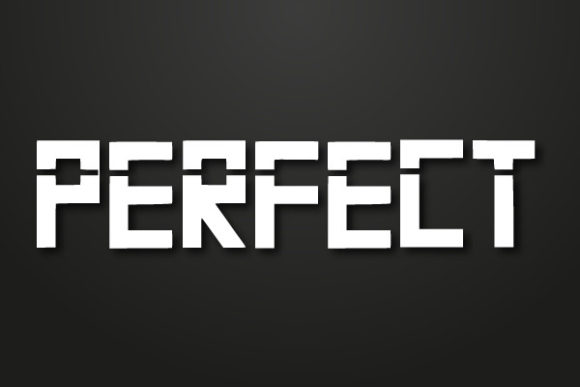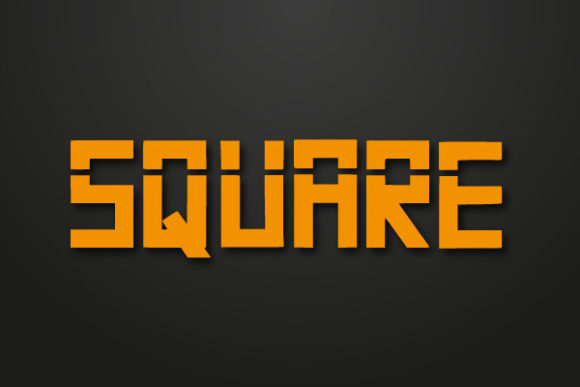
Introduction to Reccosow Font
Do you remember that moment when you’re brainstorming ideas for a new project and you finally stumble upon the perfect font? It’s like the whole design comes together in a flash of inspiration. For designers, finding the right font can be a game-changer, especially when working on high-quality creative projects that demand attention.
One such font that’s making waves in the design community is the Reccosow Font. With its bold and thick lettered display, this font is perfect for adding an assertive touch to your posters, covers, ads, and more. Whether you’re working on a free download project or a commercial campaign, the Reccosow Font is a valuable design resource that’s sure to elevate your creative project to the next level.
With a transparent background that lets your design shine, the Reccosow Font is an ideal choice for designers who want to make a statement without overwhelming their audience. In this article, we’ll dive deeper into the world of Reccosow Font and explore its features, uses, and why it’s a must-have in your design arsenal.
Key Features of Reccosow Font
- Unique, high-quality design perfect for creative projects and artistic expressions.
- Perfect for use in various design contexts, from print materials to digital interfaces, and everything in between.
Honest Review: Reccosow Font
I recently stumbled upon the Reccosow Font, and I have to say, it’s been a game-changer for my creative projects. The first thing I noticed was the high quality of the font, which is perfect for any design resource. The transparent background makes it easy to use in various design scenarios.
- ✨ High-quality design that looks great on any background
- ✨ Perfect for creative projects, including graphics, logos, and more
- ⚠️ Limited character set, which might not be suitable for complex text-based designs
- ⚠️ Not ideal for small text sizes, as it can become pixelated
Overall, I’m really impressed with the Reccosow Font. It’s a fantastic design resource that’s perfect for creative projects. While it has its limitations, the pros far outweigh the cons. I’d definitely recommend it to fellow designers looking for a high-quality font.
Reccosow Font is a high-quality, free download design resource ideal for creative projects. This versatile font features a transparent background, making it perfect for various design applications.
Tips for Getting the Most Out of Reccosow Font
To maximize the effectiveness of Reccosow Font, consider the following tips:
- Experiment with different font sizes and styles to achieve the desired visual impact.
- Combine Reccosow Font with other design elements to create a cohesive look.
- Use Reccosow Font in conjunction with a transparent background to create a clean and modern design.
Common Use Cases for Reccosow Font
Can I modify or customize the Reccosow Font for my design project?
The Reccosow Font is a pre-designed font, and modifying or customizing it may require advanced typography skills and font editing software. While it’s possible to make some adjustments, such as font size or color, significant modifications may not be feasible or recommended, as they could compromise the font’s integrity and design intent.